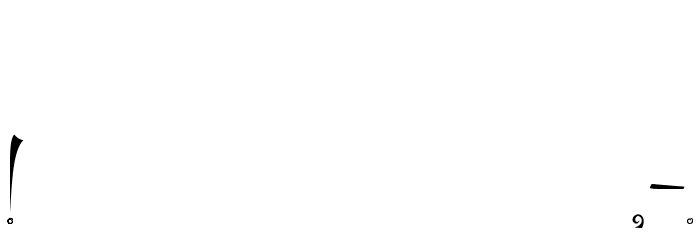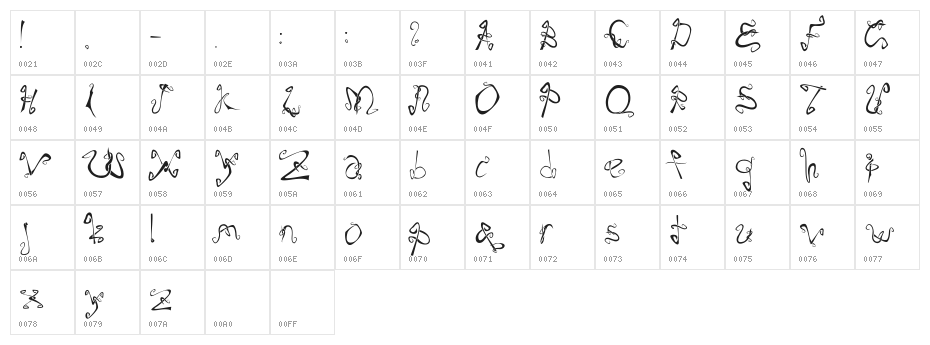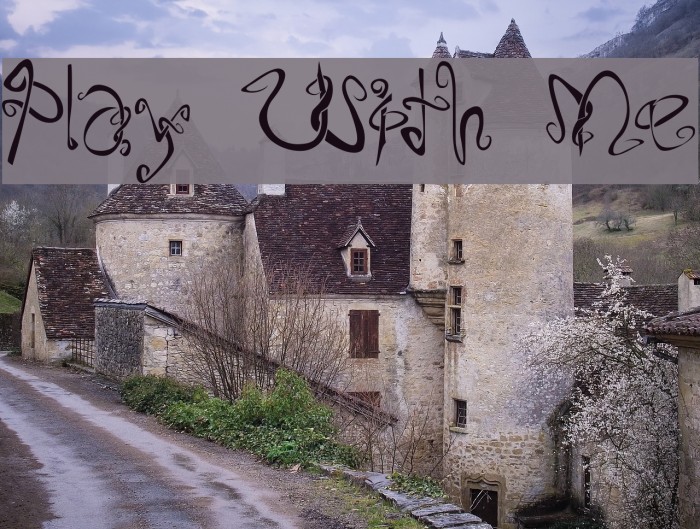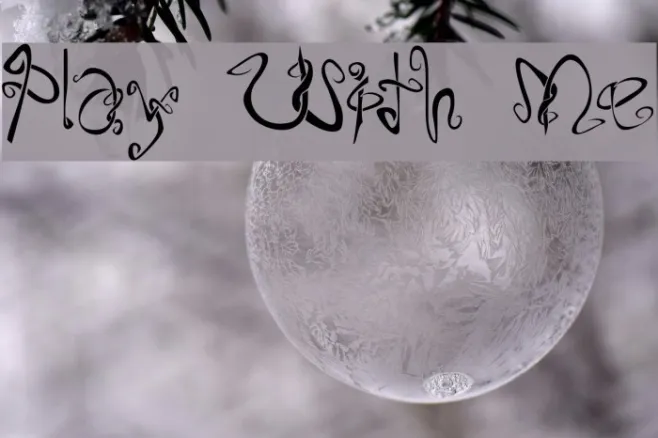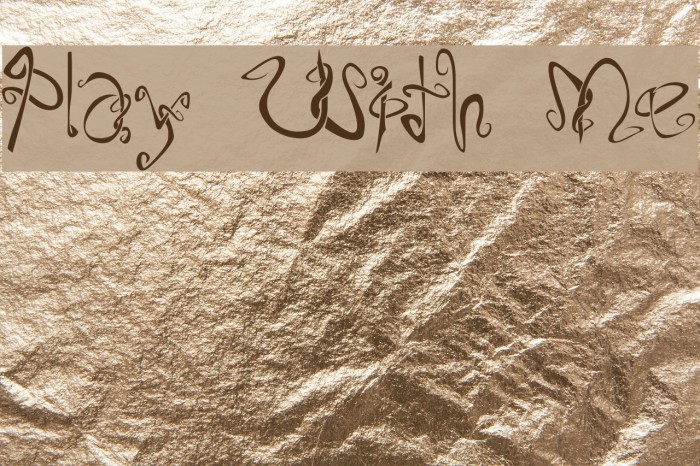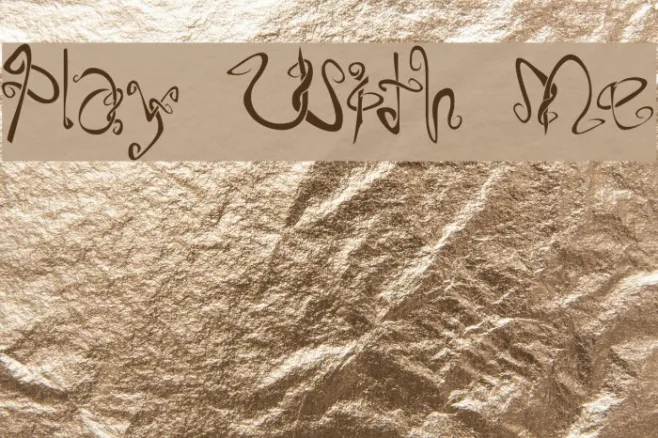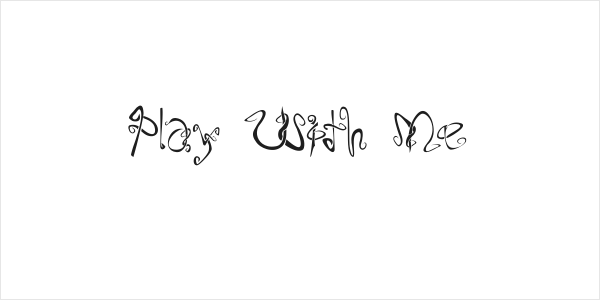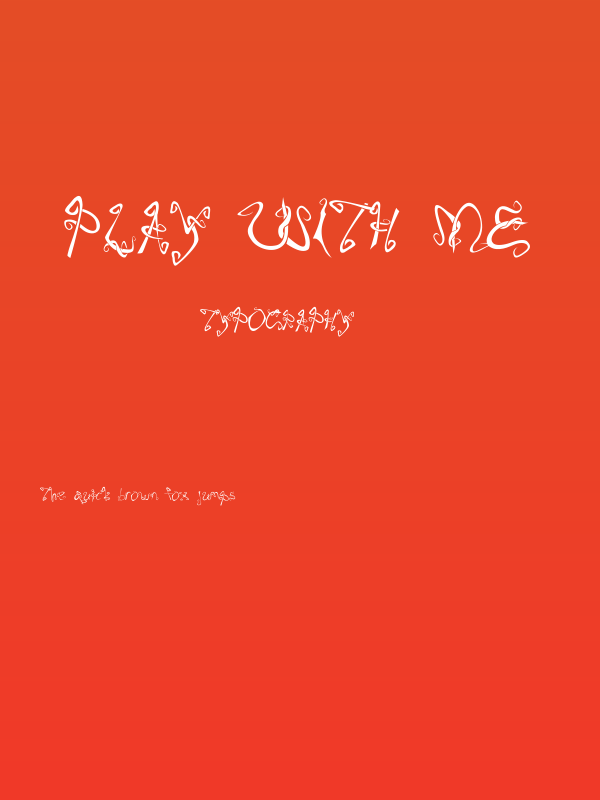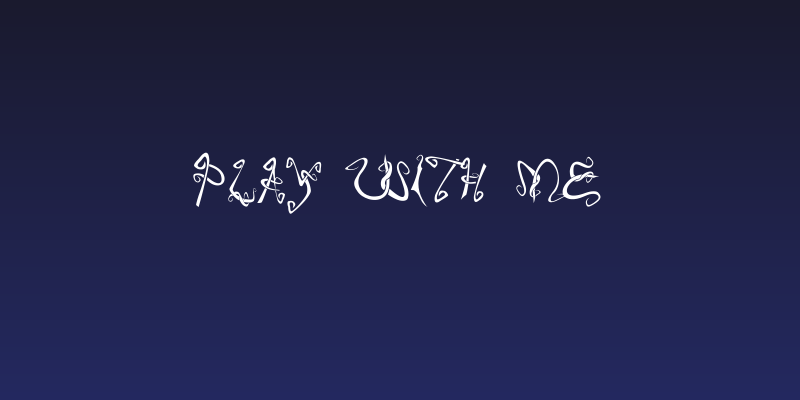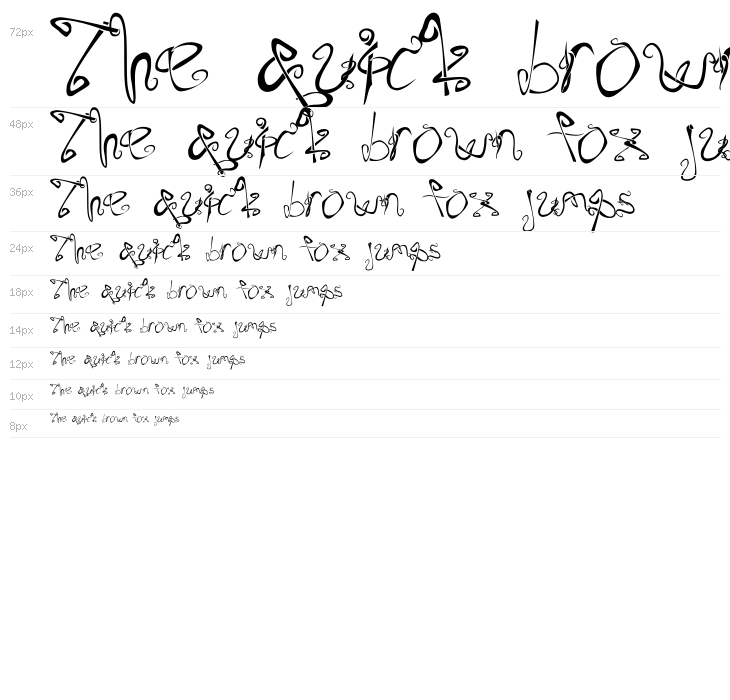
Play With Me Font
Play With Me Description
This playful and whimsical font features a unique, decorative style with intricate swirls and curls that give each character a lively and dynamic appearance. The uppercase and lowercase letters are designed with a consistent theme of loops and flourishes, creating a sense of movement and energy. The numbers and special characters follow the same playful design, ensuring a cohesive look across all text elements. The font's artistic flair makes it stand out, capturing attention with its creative and imaginative design. It's perfect for projects that require a touch of fun and creativity, such as children's books, playful branding, or artistic posters.
| Use Case | Headlines, Logos, Artistic projects |
| Proposed Projects | Ideal for children's books, playful branding, artistic posters, and creative invitations. |